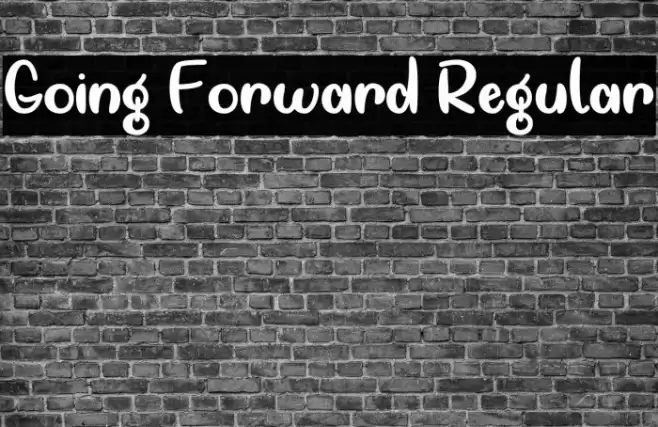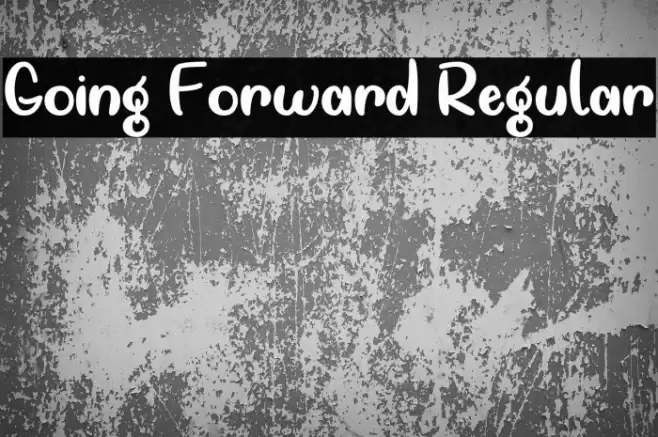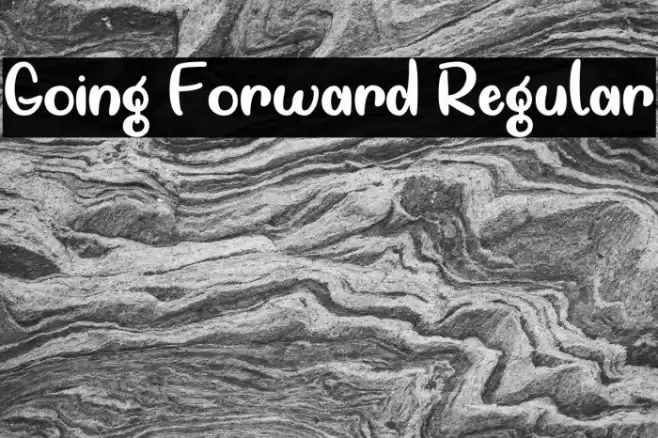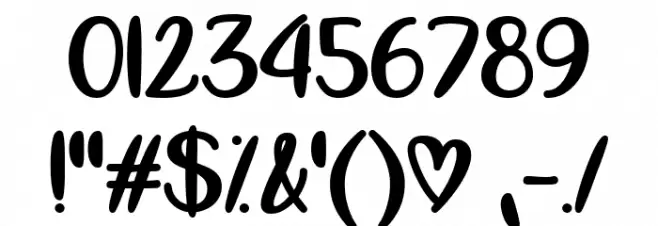
Going Forward Regular Font
Going Forward Regular Description
This font features a playful and rounded style with a handwritten feel. The characters are bold and have a consistent thickness, giving them a friendly and approachable appearance. The uppercase letters are slightly taller than the lowercase, maintaining a uniform width throughout. The numbers and special characters follow the same design principles, ensuring a cohesive look. The overall style is casual and informal, making it suitable for projects that require a touch of personality and warmth.
A playful, rounded handwritten font with a bold and consistent style from Uncategorized fonts.
- Proposed Projects: Ideal for children's books, greeting cards, playful branding, and social media graphics.
- Overall Style: Casual
- Use Case: Headlines, Logos, Informal Invitations